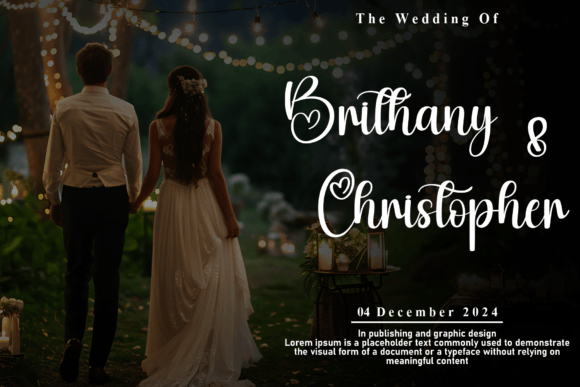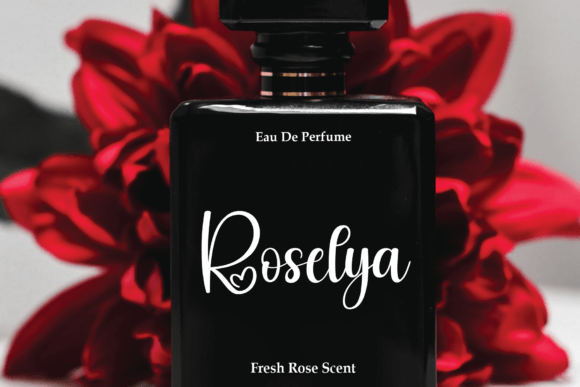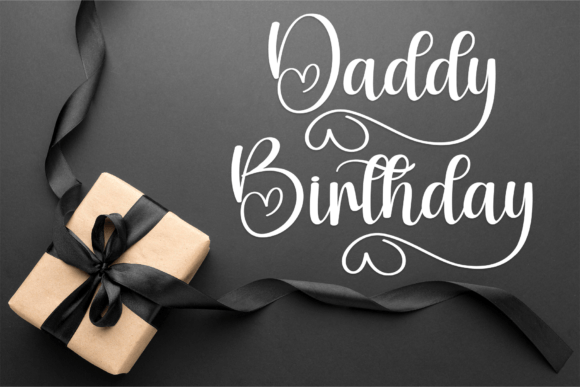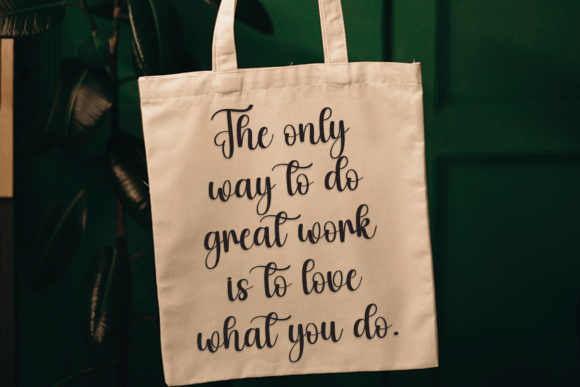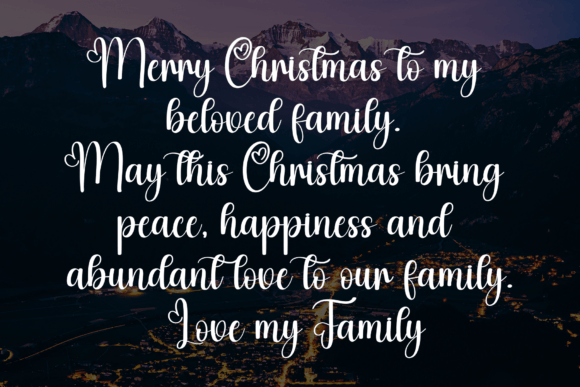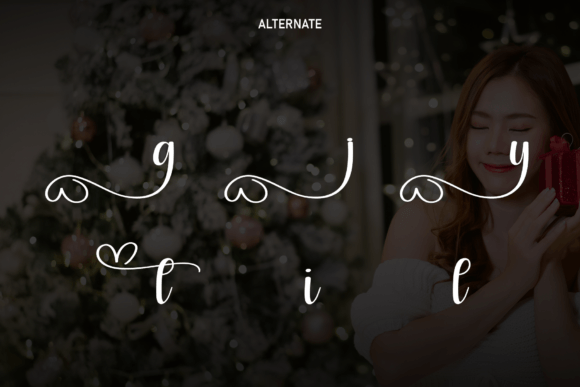
Deck the Halls with Holiday Cheer: Introducing the Beauty Christmas Font
It’s that time of the year again – the snow is falling, the fireplace is crackling, and the festive spirit is in the air. As designers, we’re always on the lookout for the perfect font to capture the essence of the season. And, trust us, you’re in luck! The Beauty Christmas Font is here to bring a touch of whimsy and wonder to your holiday projects.
This sweet and friendly handwritten font is the perfect addition to any design. Its natural and unique style makes it incredibly versatile, allowing you to let your imagination run wild. Whether you’re creating a festive newsletter, a holiday card, or a seasonal social media post, the Beauty Christmas Font is sure to add a dash of magic to your design. And, as a valuable resource for designers, this font is the perfect tool to help you create beautiful and memorable holiday content.
Key Features of Beauty Christmas Font
- Unique Characteristics: Ornate, cursive, and handwritten design elements, making it perfect for festive and holiday-themed designs
Beauty Christmas Font Review
Overall, I think Beauty Christmas Font has its charm, but it’s not without its flaws. Let’s start with what works well:
- ✨ The font is very festive and perfect for holiday-themed designs. It’s a great choice for Christmas cards, gift tags, or social media posts.
- ✨ The font is highly customizable, which means you can easily adjust the size, color, and style to fit your design needs.
- ✨ The font is well-behaved, meaning it doesn’t contain any problematic characters or glyphs that might cause issues with layout or text rendering.
- ⚠️ The font is quite ornate, which can make it difficult to read at small sizes or in certain color combinations.
- ⚠️ The font lacks a clear, simple design, which might make it less versatile for everyday use or non-holiday-themed designs.
- ⚠️ Some users may find the font’s aesthetic to be overly commercial or cheesy, depending on their personal taste.
In conclusion, I think Beauty Christmas Font is a solid choice for holiday-themed designs, but it’s not a one-size-fits-all solution. Use it wisely, and consider its limitations when designing with it.
The Beauty Christmas Font is ideal for creating festive designs for:
– Christmas cards and invitations
– Holiday-themed social media posts
– Seasonal promotional materials
– Personalized gift tags and labels
To get the most out of the Beauty Christmas Font, try combining it with other festive graphics and designs, such as snowflakes, holly, or candy canes. Experiment with different font sizes and styles to create a unique and eye-catching look.
The Beauty Christmas Font includes a standard character set, including uppercase and lowercase letters, numbers, and punctuation marks. It also includes additional characters, such as ornaments and festive symbols, to help you create beautiful holiday designs.